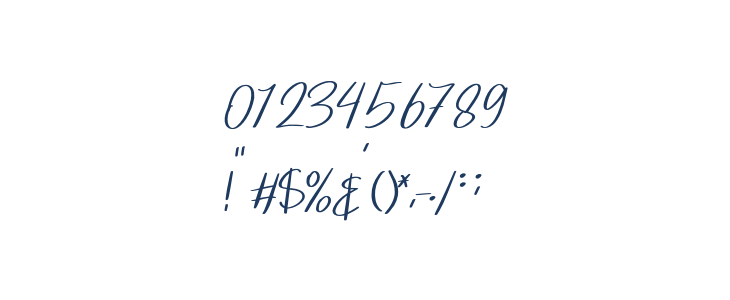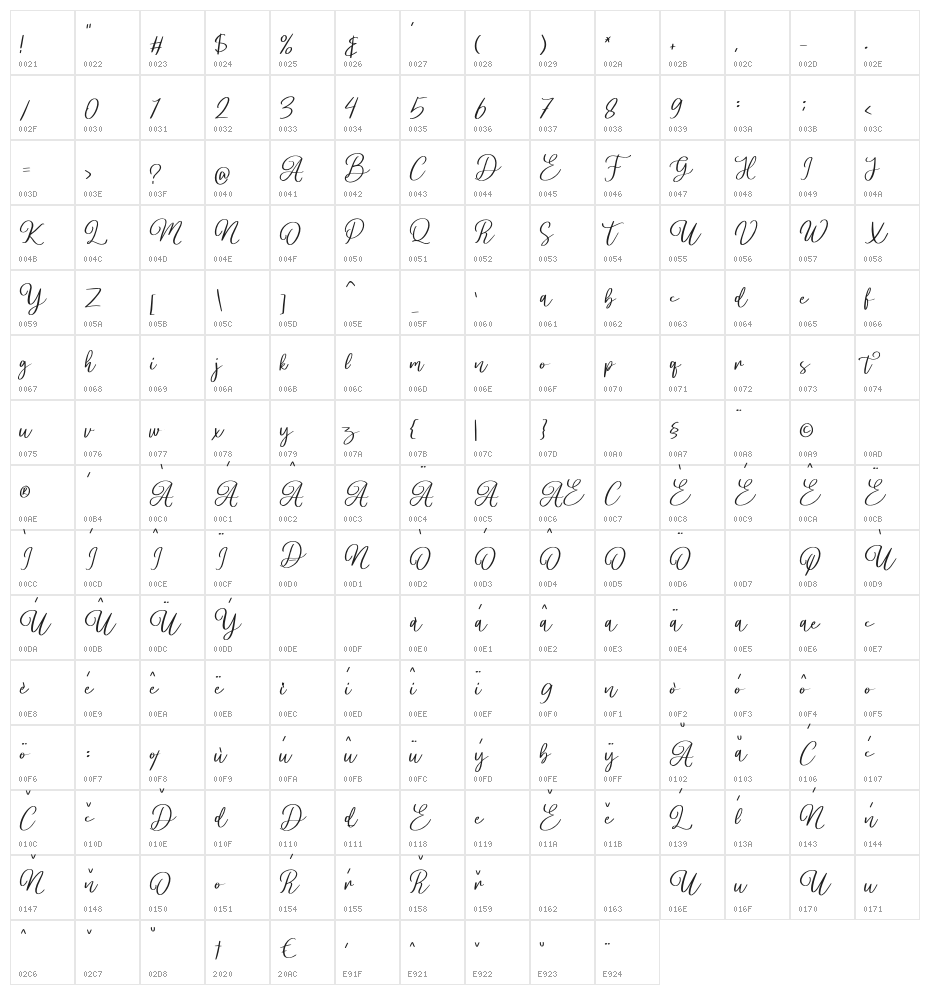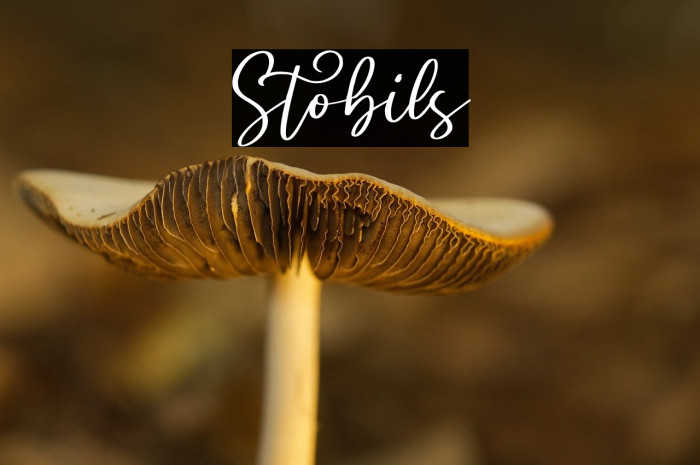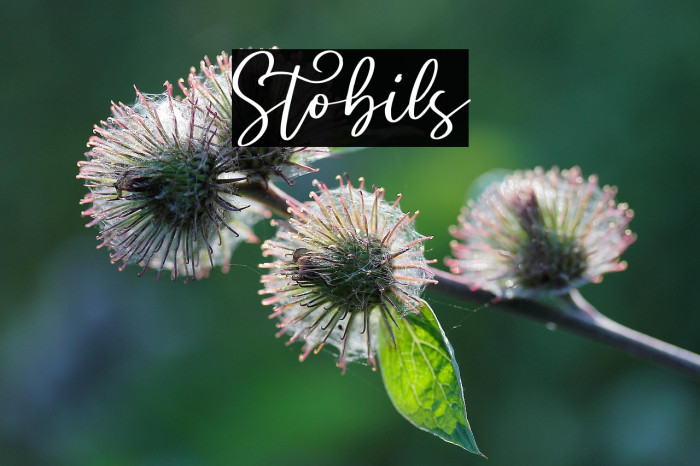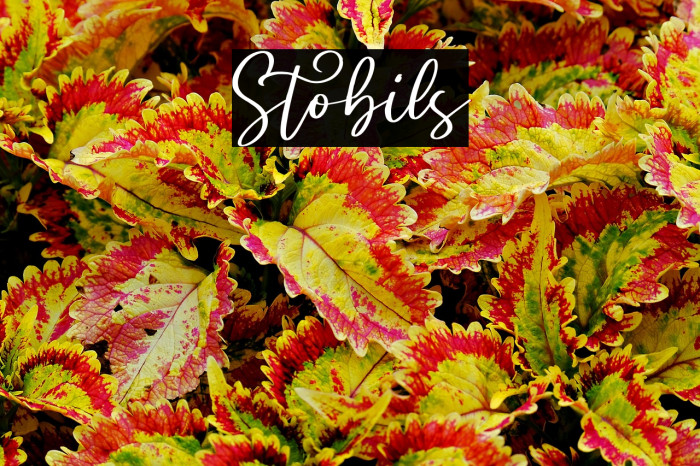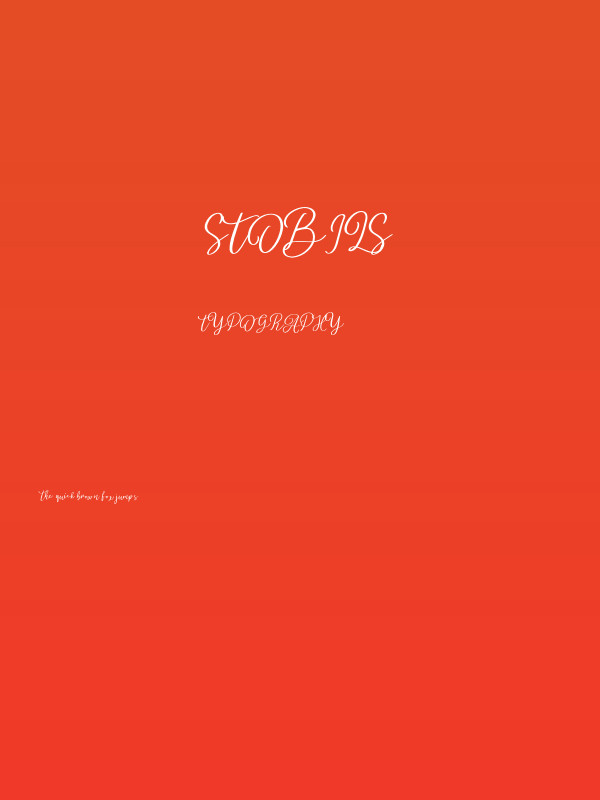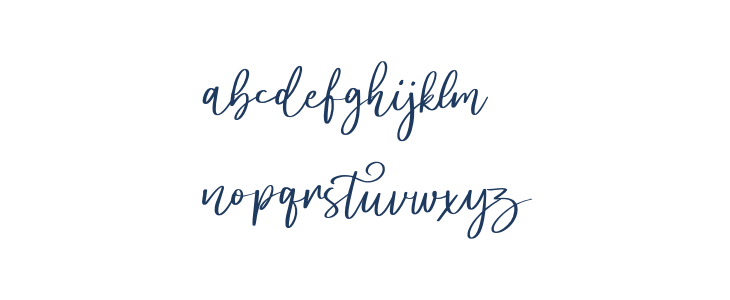
Stobils Font
Stobils Description
This elegant script font features flowing, cursive letterforms with a sophisticated and artistic flair. The uppercase letters are characterized by their sweeping curves and loops, giving them a sense of movement and grace. The lowercase letters maintain a consistent style, with smooth connections and a slightly more restrained design. The numerals are stylishly crafted, complementing the overall aesthetic of the font. Special characters are thoughtfully integrated, maintaining the font's cohesive look. This font exudes a sense of elegance and creativity, making it ideal for projects that require a touch of sophistication.
| Overall Style | Elegant, Artistic |
| Use Case | Logos, Invitations, Decorative text |
| Proposed Projects | Wedding invitations, branding materials, greeting cards, and elegant packaging designs. |